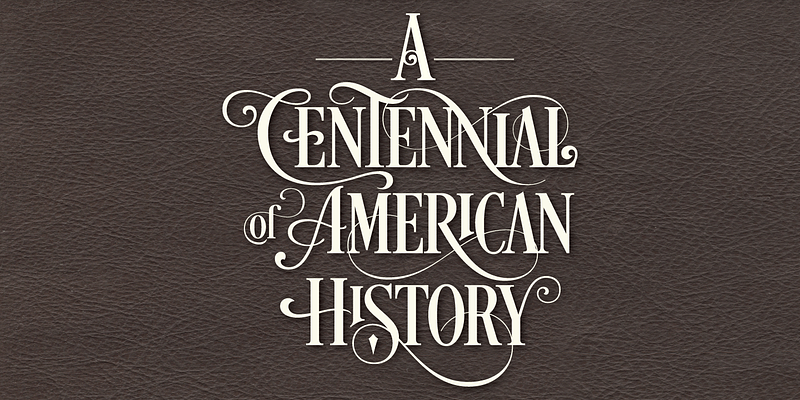
Desire Pro Font Free Download
Desire Pro Font Free Download is an elegant, modern serif typeface designed with sophistication and legibility in mind. Its sharp serifs and refined proportions give it a professional yet artistic look, making it ideal for use in branding, editorial layouts, websites, and any project that requires a mix of modernity and elegance.
Desire Pro offers clean lines and a high contrast between thick and thin strokes, which helps maintain readability even in smaller text. Its timeless and stylish appeal makes it perfect for use in high-end branding, fashion magazines, luxury advertising, and more.